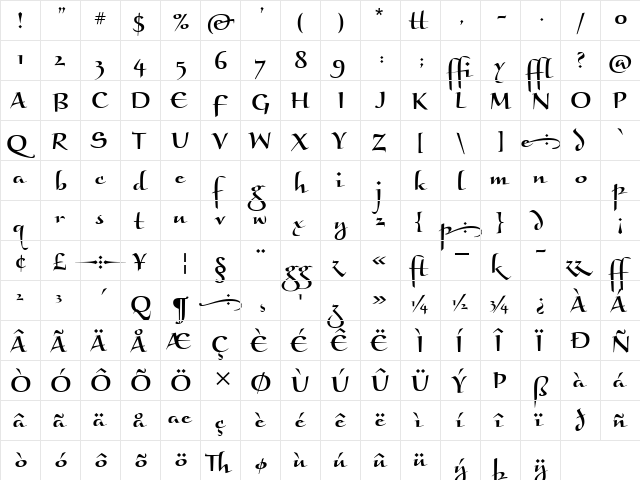
BraganzaITC Bold
Design Context for BraganzaITC Typeface
BraganzaITC is a composed and adaptable typeface that performs quietly and consistently across a wide range of design contexts. The heavy weight commands attention and anchors typographic hierarchies.
Pro Tip: Use BraganzaITC in both headline and body roles to test its range before committing to a single application.